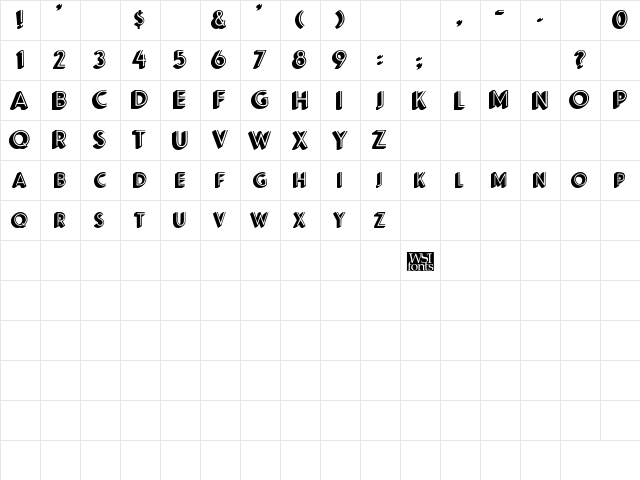
KiraShadow Regular
Design Context for KiraShadow Typeface
KiraShadow brings ornamental detail and strong personality to headlines and identities, where visual impact matters more than quiet functionality.
Font Pairing: Pair with a clean neutral sans-serif for body copy to let KiraShadow's character lead without overwhelming the composition.
Pro Tip: Treat KiraShadow as the centrepiece of your typographic hierarchy. One strong heading set in a decorative face can carry an entire layout.